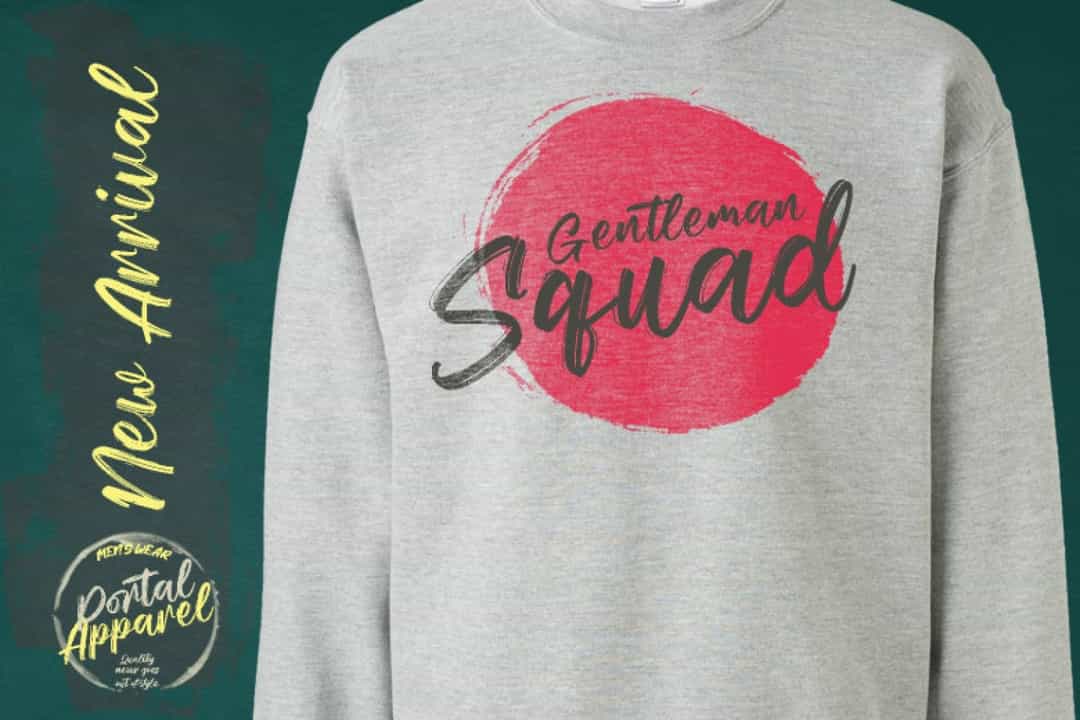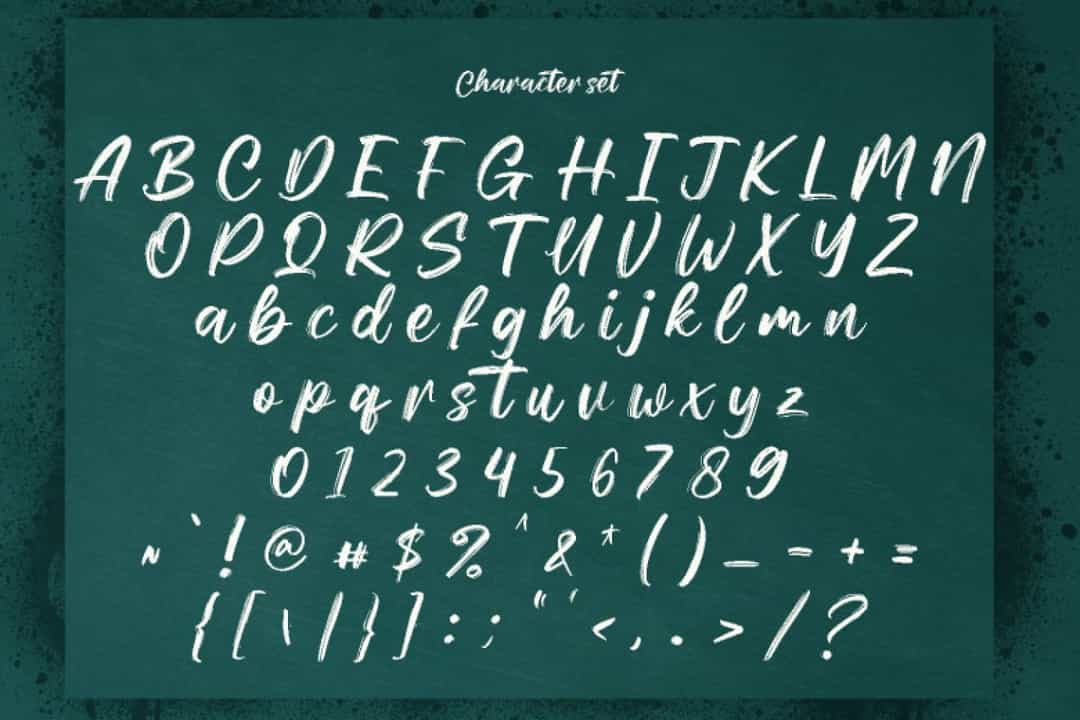
Blaze Spirit font is an elegant brush script font. Featuring striking contrast strokes of the brush and fun characters with added ligatures for enhanced creativity, Blaze Spirit supports over 100 languages!